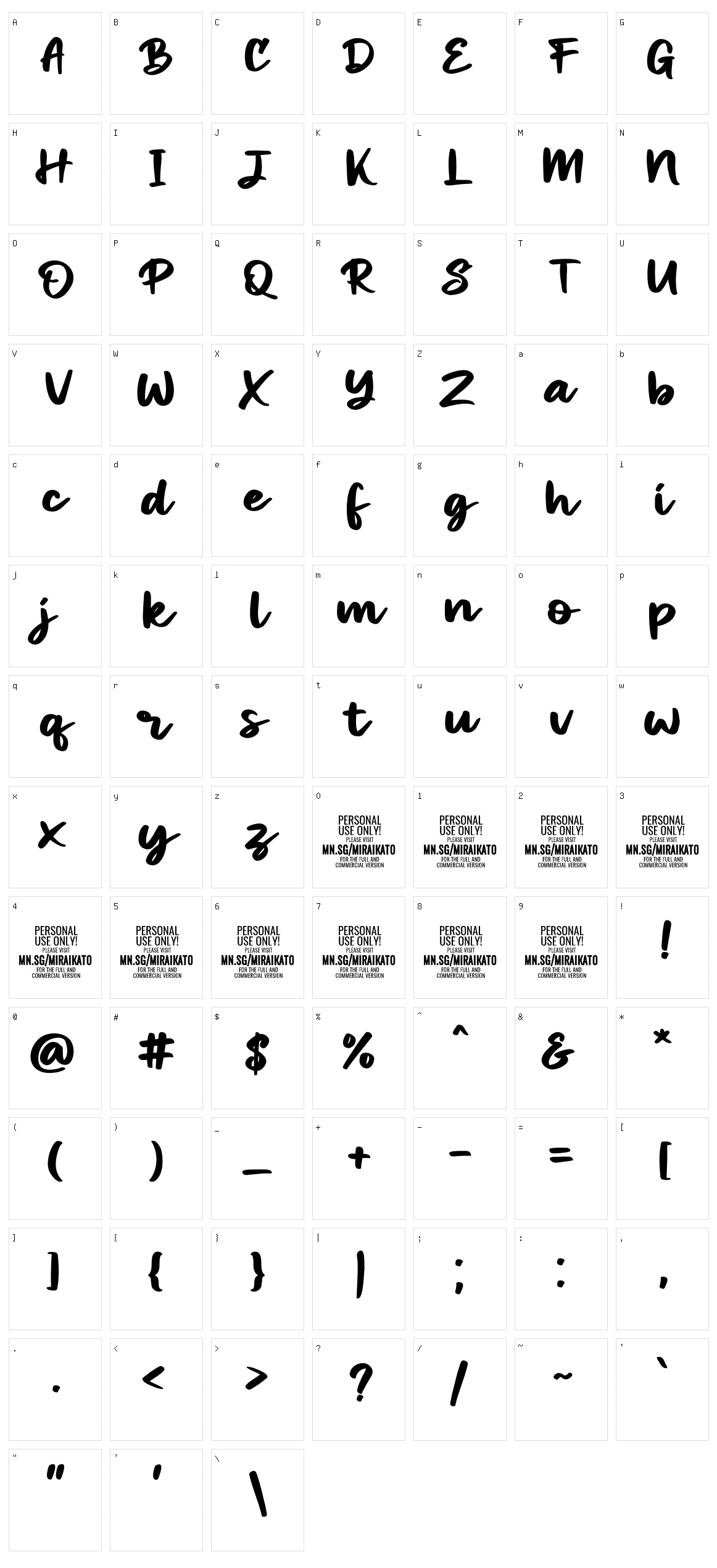
Miraikato Script is a rustic handwriting typeface.
As a cute brush writing, its naive and happy movements brings out the optimism and genuineness in any project. It has the flow and elegance of a formal font, while maintaining the youthful enjoyment of a real handwritten text.
The Miraikato Script family is provided in six styles:
The weights Thin, Regular and Bold, plus each weight as Italic.
The font is built with advanced OpenType functionality and has a guaranteed top-notch quality, containing stylistic and contextual alternates, ligatures and more features; all to give you full control and customizability.
It has extensive lingual support, covering all Latin-based languages, from North Europe to South Africa, from America to South-East Asia.
It contains all characters and symbols you'll ever need, including all punctuation and numbers.